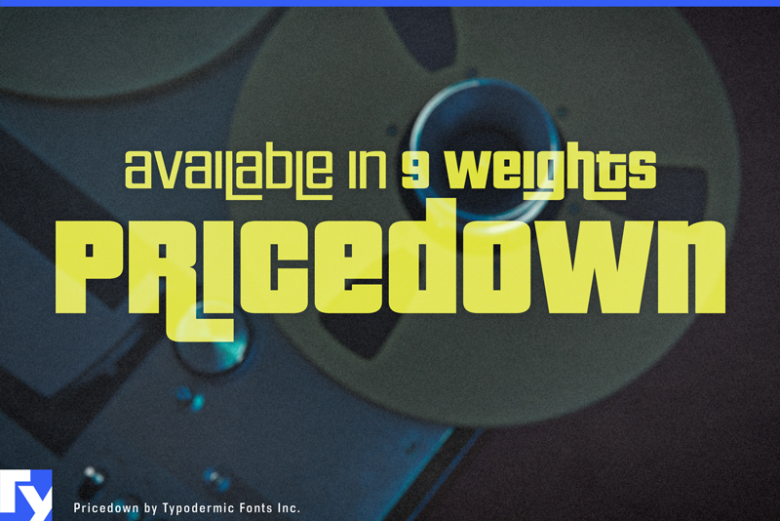
Pricedown Font
Pricedown, a single weight headline typeface released in 2000 has been rebuilt, expanded and improved. You can turn off the tails effect by disabling the ligatures feature in your application. This font includes a license that allows free commercial use: sometimes referred to as a desktop license. This allows you to install the font on a computer and use it to create posters, web graphics, game graphics, t-shirts, videos, signs, eBooks, logos and more.